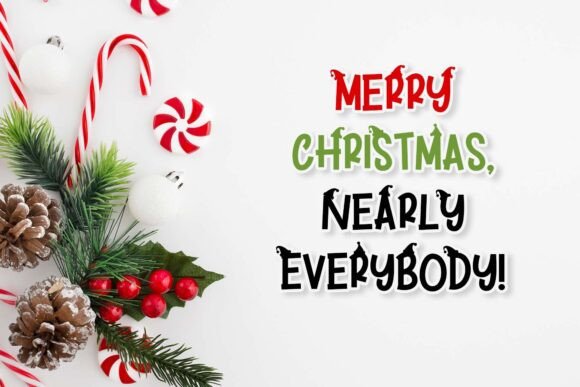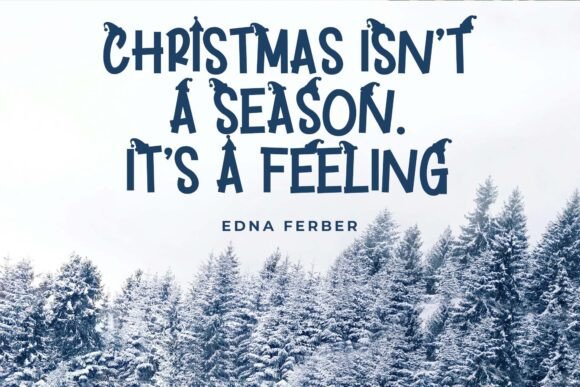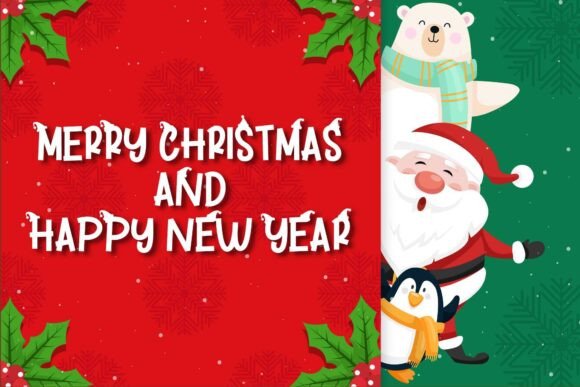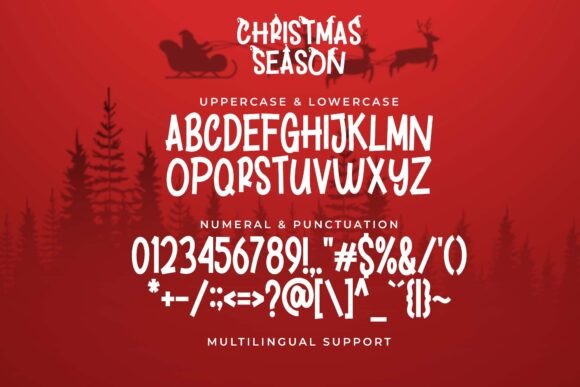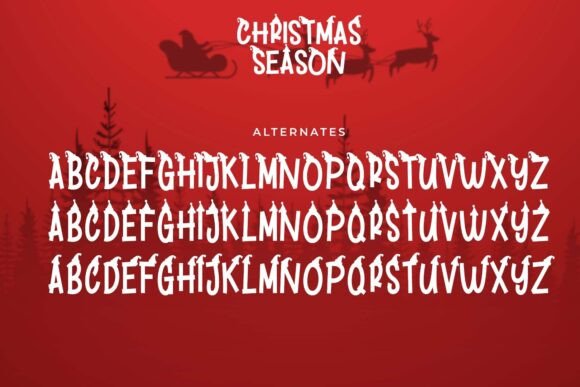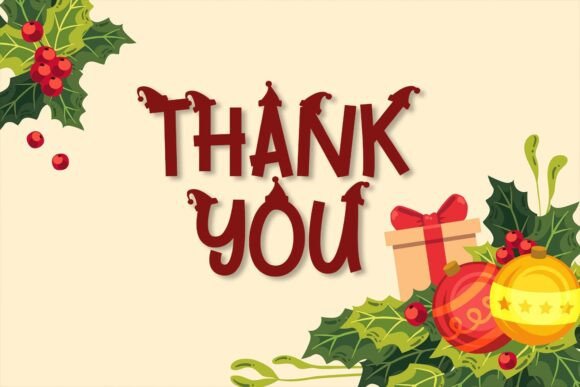
Experience the Magic of Christmas with Our Festive Font Design
The Christmas season is upon us, and with it comes the joy of creating holiday-themed designs that capture the essence of this special time of year. As a designer or crafter, you’re likely on the lookout for the perfect typography to add a touch of festive charm to your projects. Look no further than our Christmas Season Font, a display typeface designed to bring an extra sparkle to your holiday creations.
A Festive Font that’s Full of Cheer
Our Christmas Season Font is more than just a pretty face – it’s a versatile and sophisticated typeface that’s perfect for a wide range of holiday-themed projects. From Christmas cards and invitations to festive packaging and website headers, this font is sure to add a sense of holiday cheer to any design it graces. With its elegant lines, playful flourishes, and whimsical charm, it’s the perfect way to capture the warmth and joy of the season.
Transform Your Designs with Alternative Characters
One of the standout features of our Christmas Season Font is its transformative alternative characters. These clever design elements allow you to mix and match different letterforms to create a unique and eye-catching look that’s all your own. Whether you’re looking to add a touch of sophistication or a dash of playfulness to your designs, our alternative characters make it easy to achieve. With a range of options to choose from, you’ll discover the versatility and suitability of this font for all your Christmas-themed projects.
Bringing the Magic of the Season to Life
There’s something special about the Christmas season that evokes feelings of warmth, joy, and wonder. Our Christmas Season Font is designed to capture that magic and bring it to life in your designs. With its intricate details, festive flair, and typographic wonderment, this font is guaranteed to add an extra sparkle to your festive design palette. Whether you’re creating designs for personal use or for clients, this font is sure to delight and inspire.
Our Christmas Season Font is perfect for designers and crafters looking to add a touch of festive charm to their holiday creations. Whether you’re working on a commercial project or a personal craft, this font is easy to use and adaptable to a wide range of design applications. With its clear and legible letterforms, it’s ideal for use in a variety of contexts, from large display headers to smaller body text.
Tips for Using Our Christmas Season Font
To get the most out of our Christmas Season Font, here are a few tips to keep in mind:
- Use it as a display typeface to add a touch of festive charm to your designs.
- Experiment with alternative characters to create a unique and eye-catching look.
- Pair it with complementary fonts to create a cohesive and visually appealing design.
- Don’t be afraid to get creative and try out new and innovative design ideas.
Our Christmas Season Font is the perfect way to add a touch of festive charm to your holiday designs. With its transformative alternative characters, elegant lines, and whimsical charm, it’s sure to bring an extra sparkle to your festive design palette. Whether you’re a designer or crafter, this font is guaranteed to delight and inspire. So why wait? Download our Christmas Season Font today and start creating your own magical holiday designs.